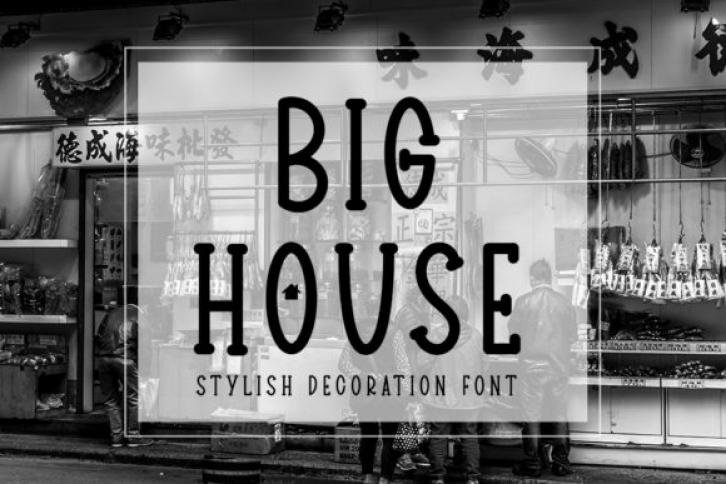
Big House is a minimal and neat serif font. It can effortlessly be added to a large set of ideas, so employ it to your creative projects and notice how it makes them stand out!